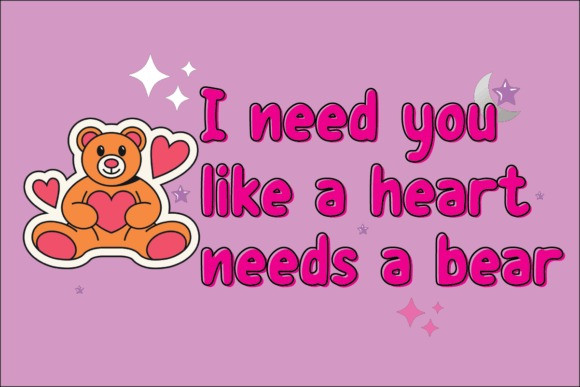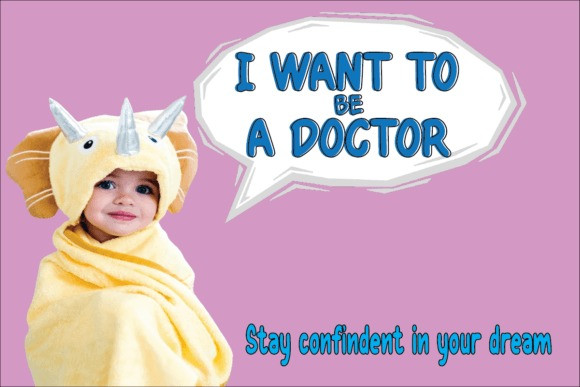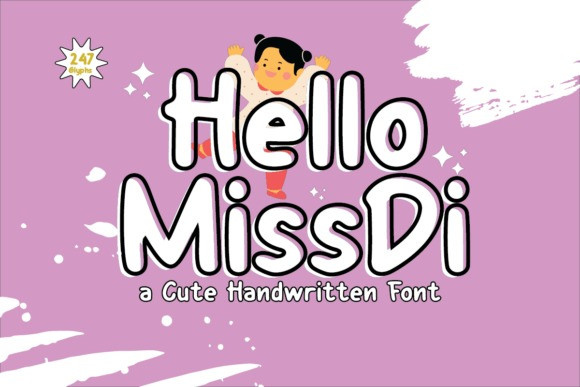
Hello MissDi Font
Hello MissDi Font captures the essence of childhood whimsy with its charming handwritten style. Each stroke exudes warmth and personality, bringing to mind the innocent joy of scribbling with crayons. Perfectly suited for children’s themes, this font adds a playful touch to storybooks, posters, and educational materials, igniting imaginations and sparking curiosity. Beyond its youthful appeal, “Hello Missdi” seamlessly integrates into brand identities, infusing them with a sense of approachable authenticity. Whether adorning product packaging, website headers, or social media graphics, this font conveys a message of creativity and friendliness. With “Hello Missdi,” every word becomes a heartfelt expression, connecting with audiences on a deeply personal level.